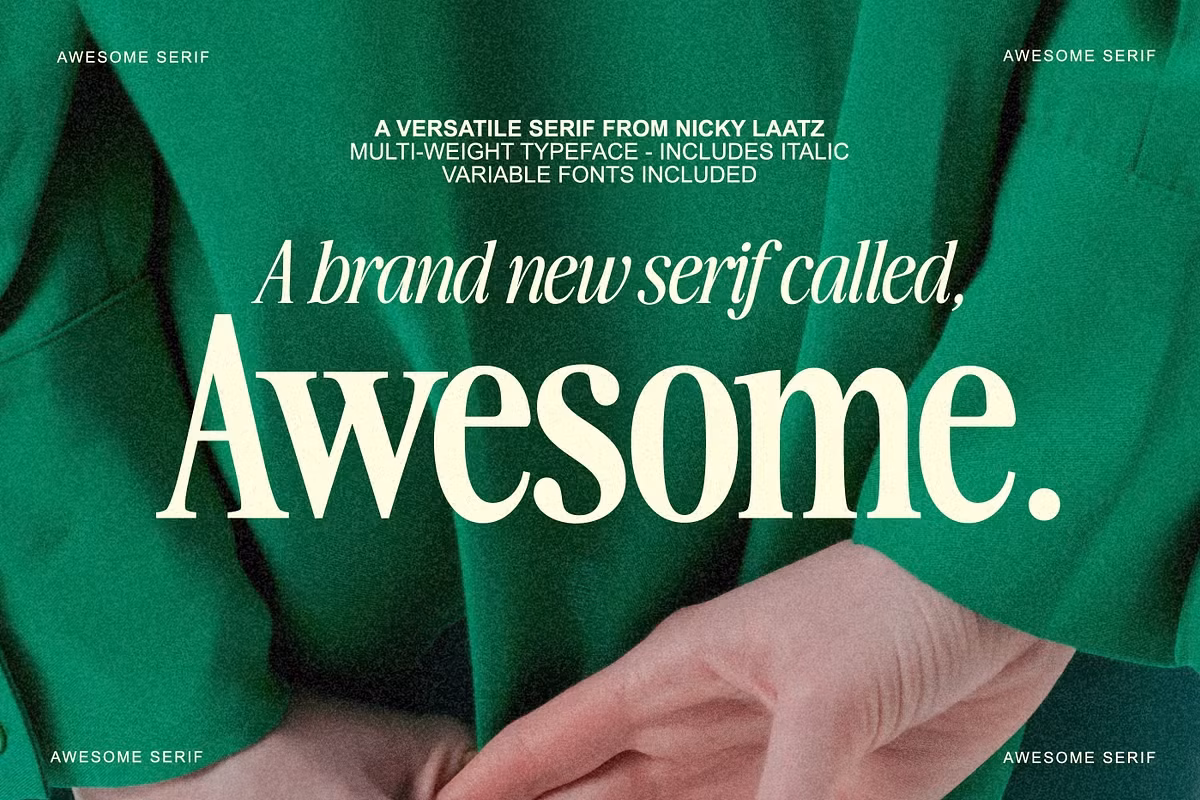
The Awesome Serif Family (32 Fonts) Free Download
The Awesome Serif Family (32 Fonts) Free Download is a comprehensive and versatile font collection offering 32 distinct styles, perfect for a wide range of design projects. With its clean, elegant serifs and modern appeal, this font family is ideal for logos, branding, editorial designs, websites, and more. Each style within the Awesome Serif Family is designed for maximum legibility while maintaining a professional and stylish look. From bold and striking to elegant and refined, this font family ensures that your designs stand out with sophistication and creativity. Please note, for commercial use, a license purchase is required. However, you can easily download the The Awesome Serif Family (32 Fonts) Free Download for free for personal use and explore its versatility. Download the Awesome Serif Family today and elevate your typography with this expansive and stylish font family.